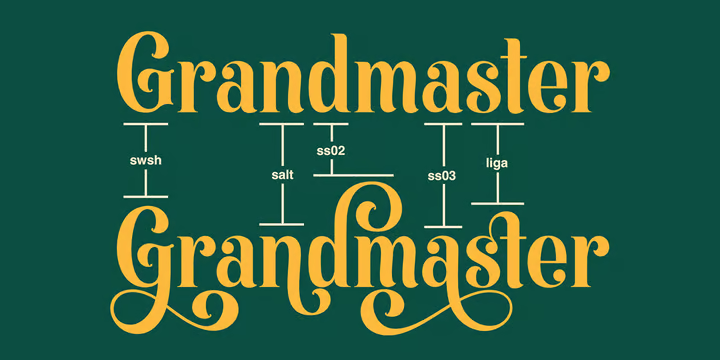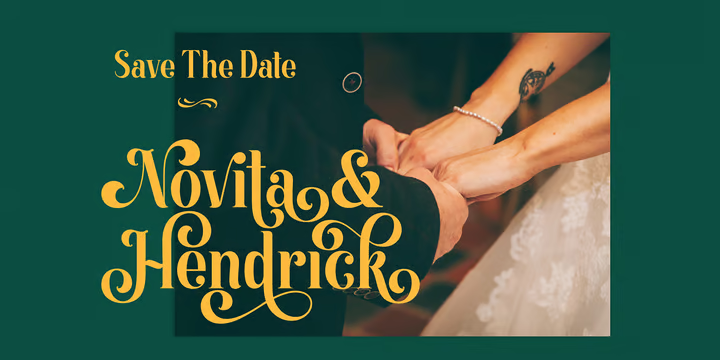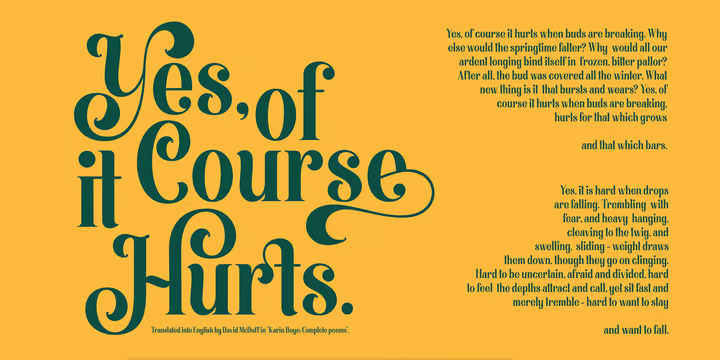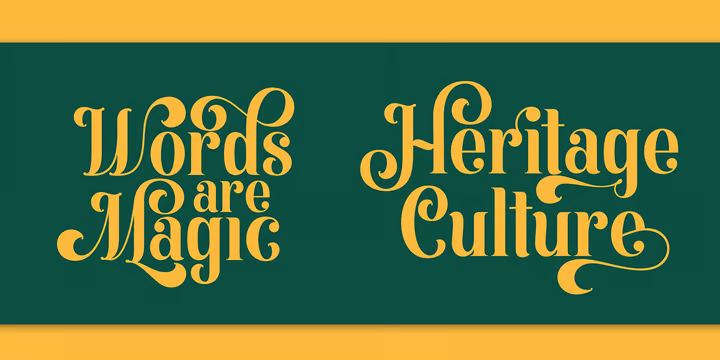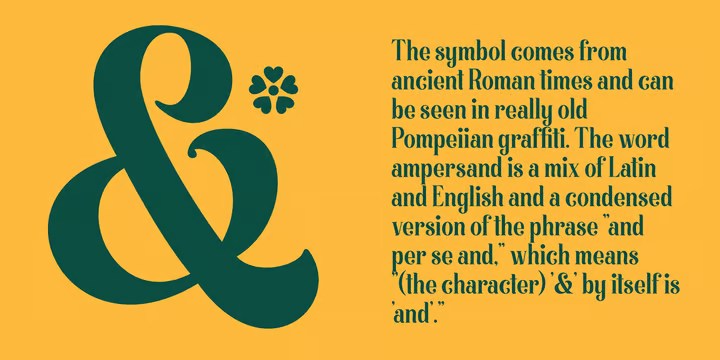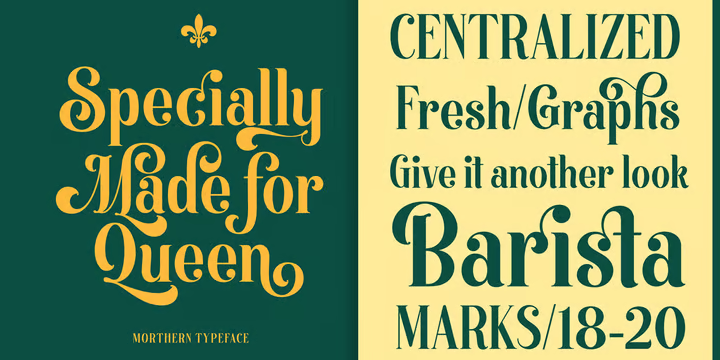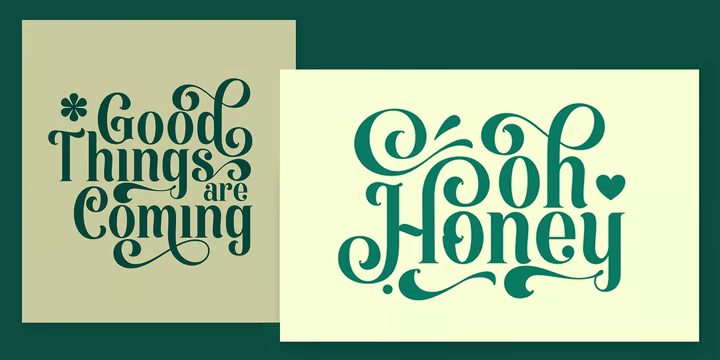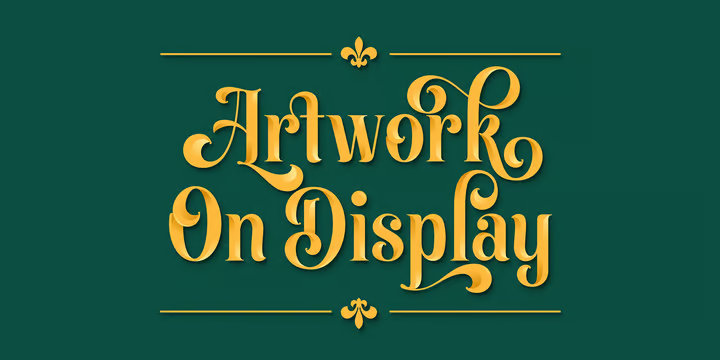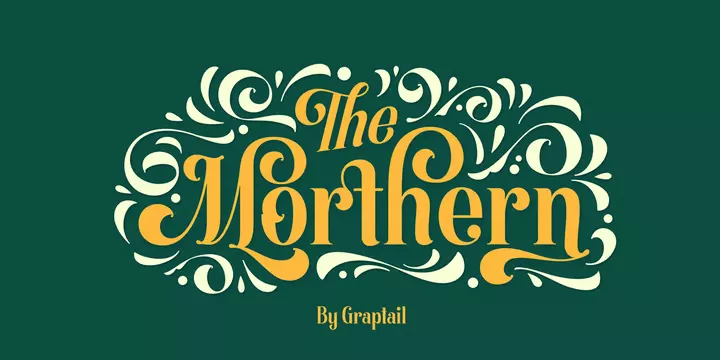
Morthern Font Family
Morthern is inspired by the work of charming lettering artists with a combination of Old Style Display Bold. Each letter is modified so that the distance, width and weight can give the beauty of the alternates given. A passionate curve gives a touch of beauty to this font. With both weights you have two different shapes in terms of uppercase letters that aim to distinguish between title of the letter and the paragraph.
Where Morthern Font Family works best
Morthern Font Family brings a personal, handwritten warmth to invitations, menus and place cards.
Craft brands — coffee, cosmetics, bakery — use scripts like Morthern Font Family for signature-style logos and labels.
Pair Morthern Font Family with a plain sans for quotes, stories and Pinterest pins that feel handmade.
What is Morthern Font Family good for?